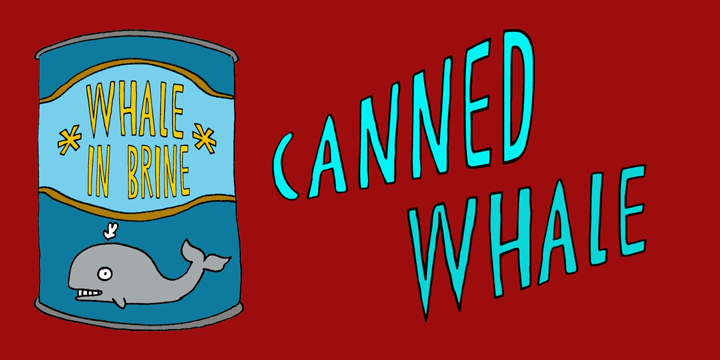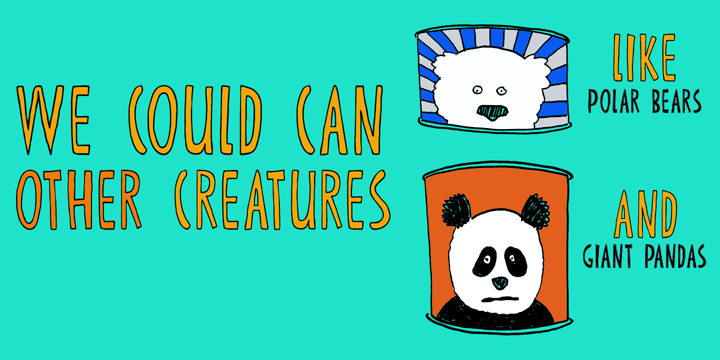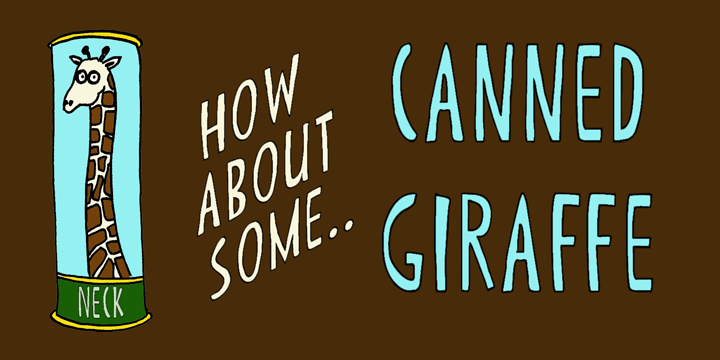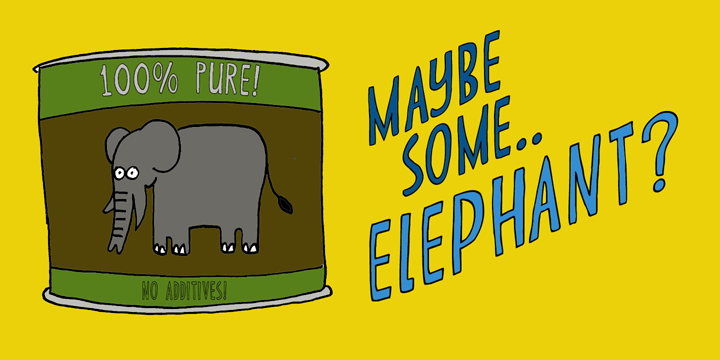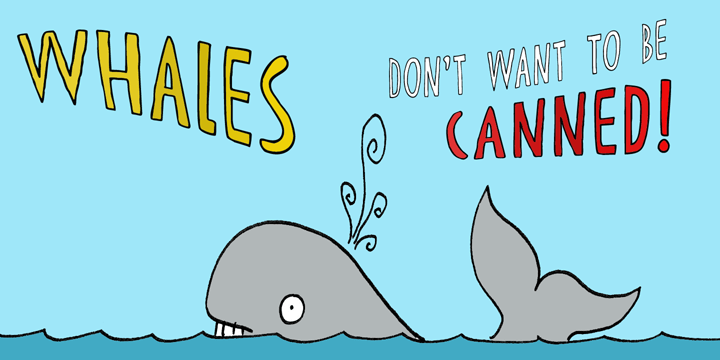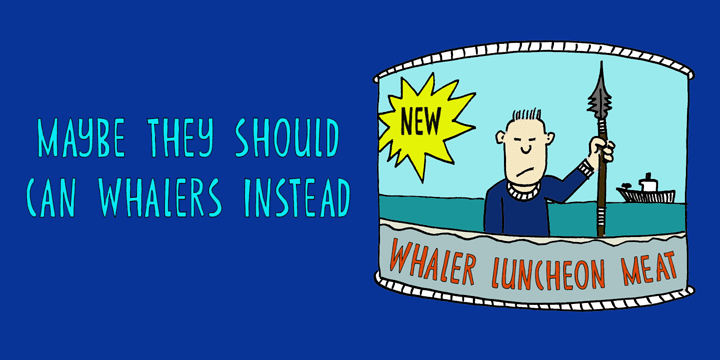
Canned Whale
Each year whalers from Japan kill more than 1000 whales. Japan says that the killing of whales is a ?cherished Japanese tradition?, and that it is taking 'scientific data?. A portion of the whale meat is canned and marketed as 'traditional food?. How sad is that? A huge whale being reduced to a chunk in a can?
Canned Whale is a hand drawn, outline style font with a cartoonesque twist to it. It can be used in ads and posters, it can be filled in with color, or kept as an outline. Canned Whale comes with extensive language support.